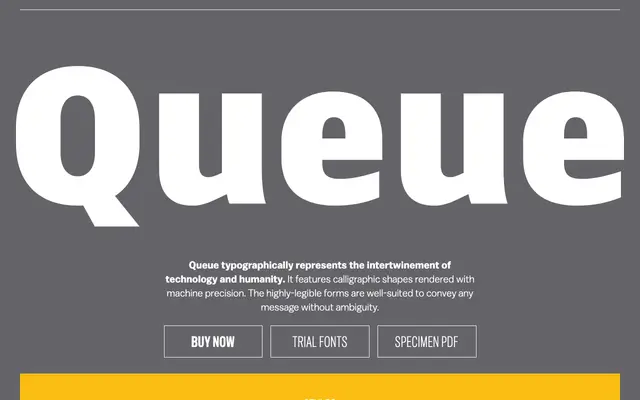
A humanist sans that borrows calligraphic structure and renders it with machine precision across six weights with matching italics.
Queue pairs calligraphic letterform logic with highly controlled, mechanically precise execution, sitting somewhere between warmth and clinical clarity. Six weights from Thin to Black each carry an italic, and OpenType features include case-sensitive forms, tabular figures, fractions, subscript and superscript. Latin Extended coverage spans over fifty languages, making it practical for multilingual publishing and interface work.
Calligraphic origins rendered with geometric precision place Queue in the humanist sans tradition, where organic stroke contrast meets clean, machine-like construction.